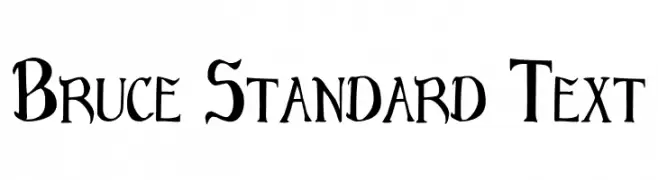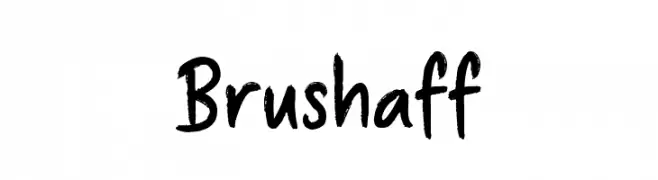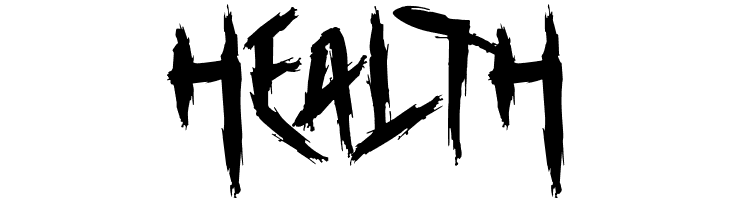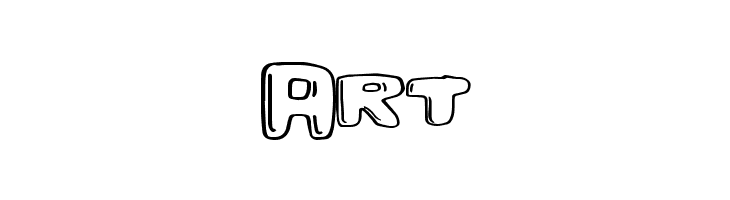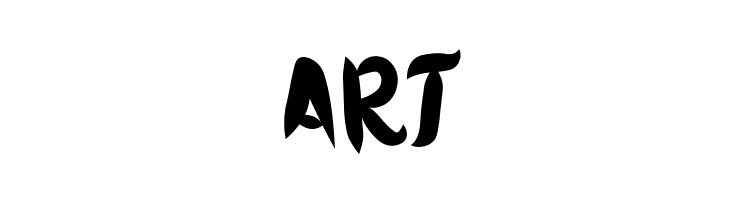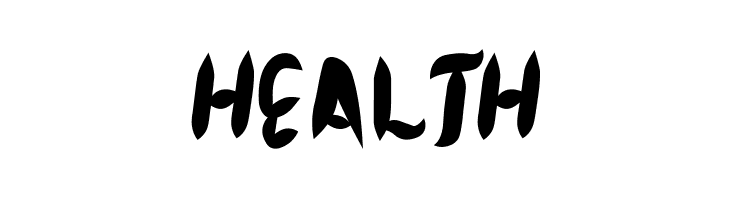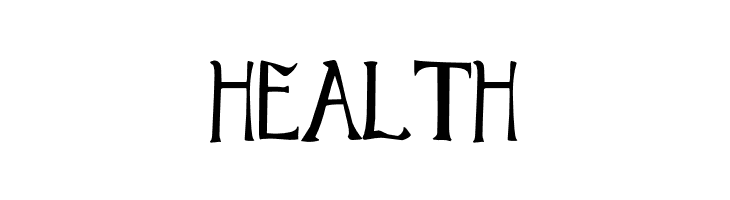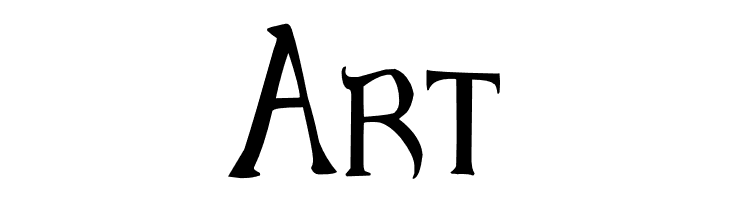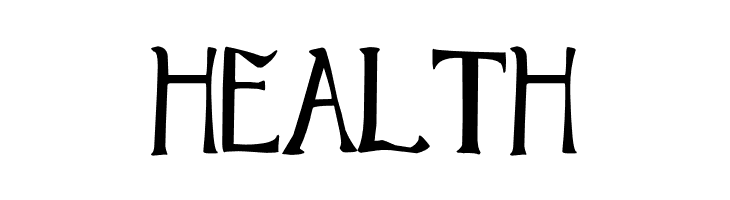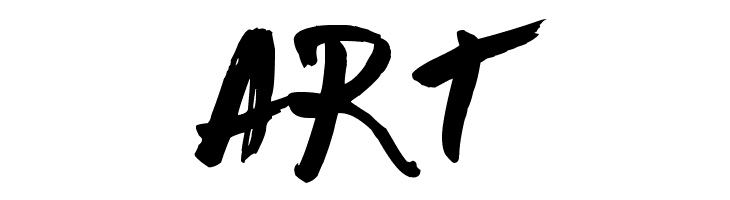
• Bruce Standard Text
A decorative serif font with bold, angular serifs and dynamic strokes.
• Brushaff
A bold, expressive brush-style font with dynamic strokes and a hand-painted look.
• Brushed Traveler
A bold, brush-style font with dynamic and expressive strokes.
• Brushingtons
A bold, brush-style font with dynamic, hand-painted strokes.
• BrushPenMK-Medium
A playful, brush-stroke inspired font with a whimsical and artistic style.
• Brutalworld
A bold, edgy font with jagged, brush-like strokes and a rebellious aesthetic.
• Bubblez
A playful, bold, and bubbly font with rounded edges and a whimsical style.
• Buble Fish
• bulgatin
An elegant script font with flowing, ornate characters.
• BurgerHut
A playful, bubble-like outlined font with a bold and whimsical style.